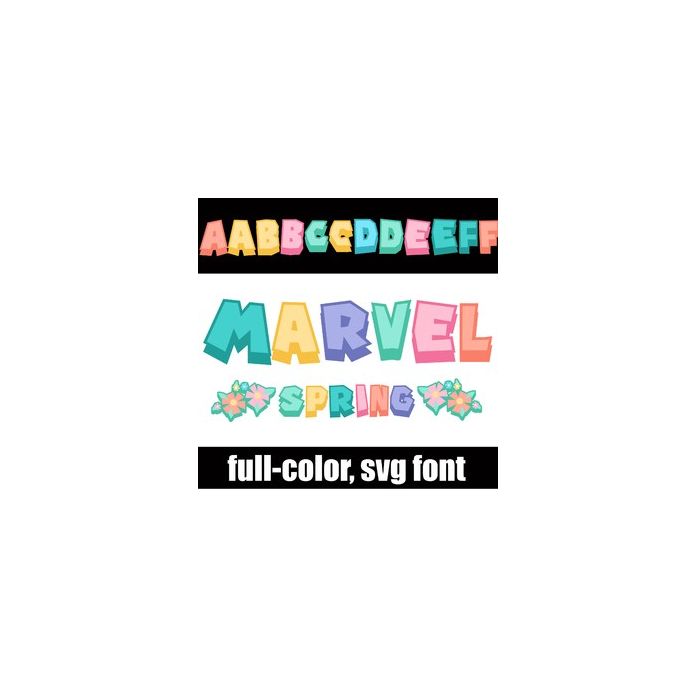
This full-color font features blocky lettering in spring colors. Access a floral arrangement by typing the greater than and less than glyphs. There is an alt version you can access through your system's character map that contains additional colors of all the letters.